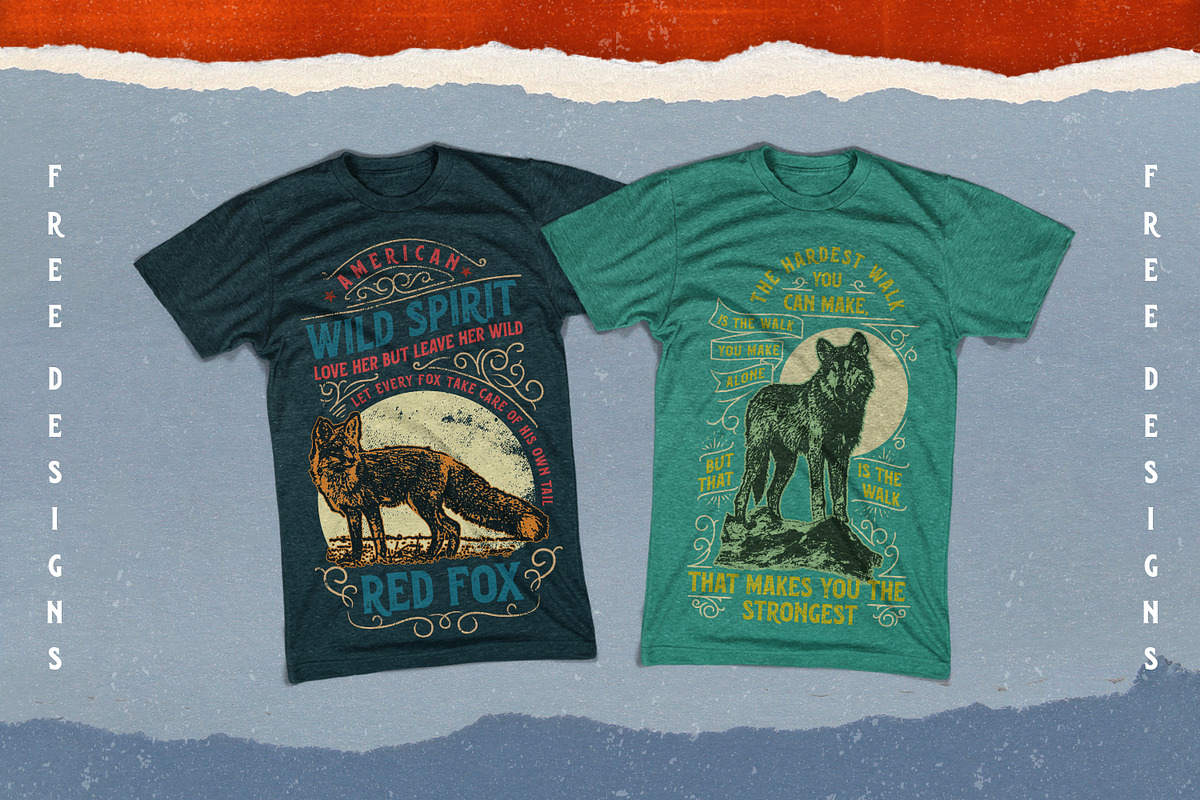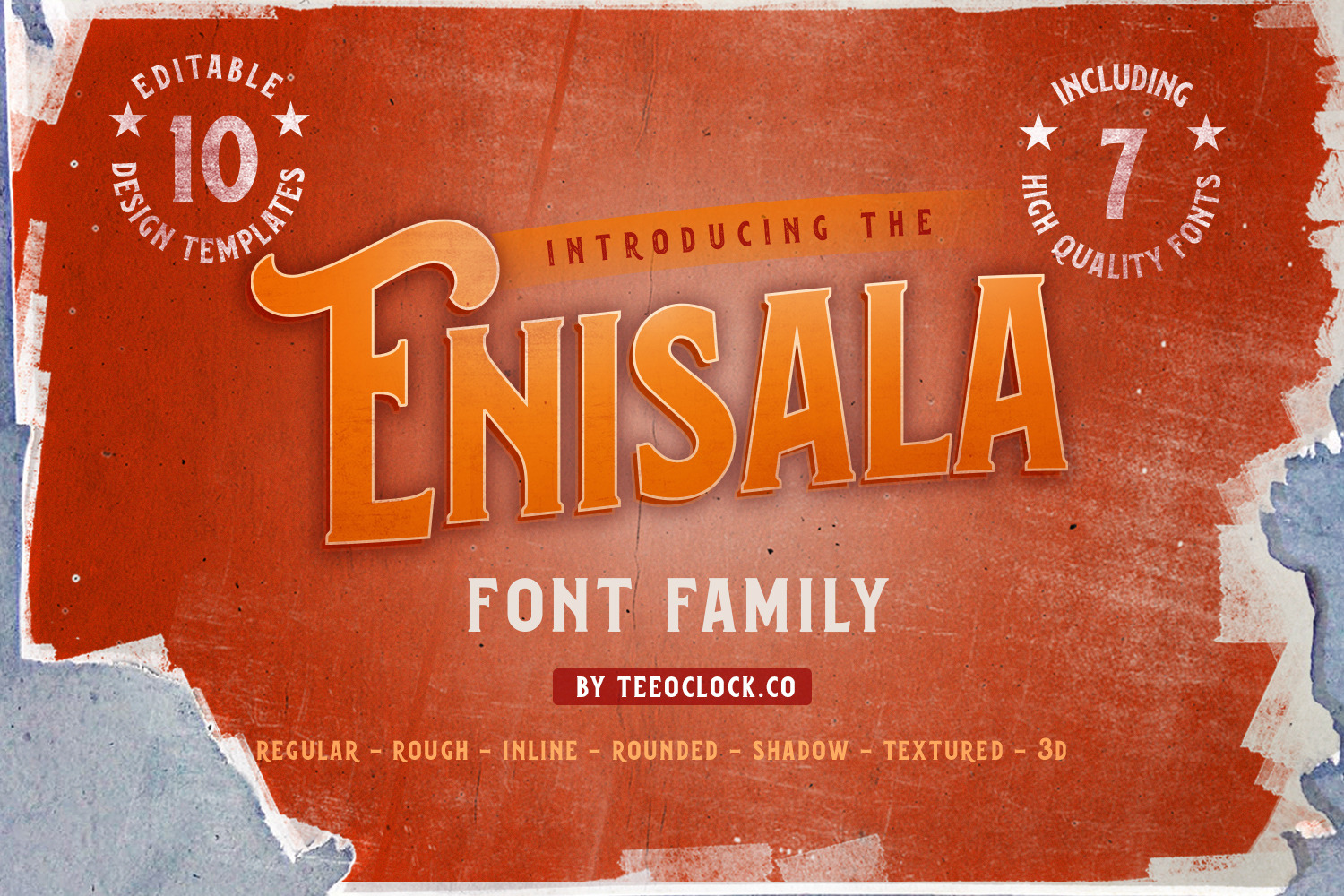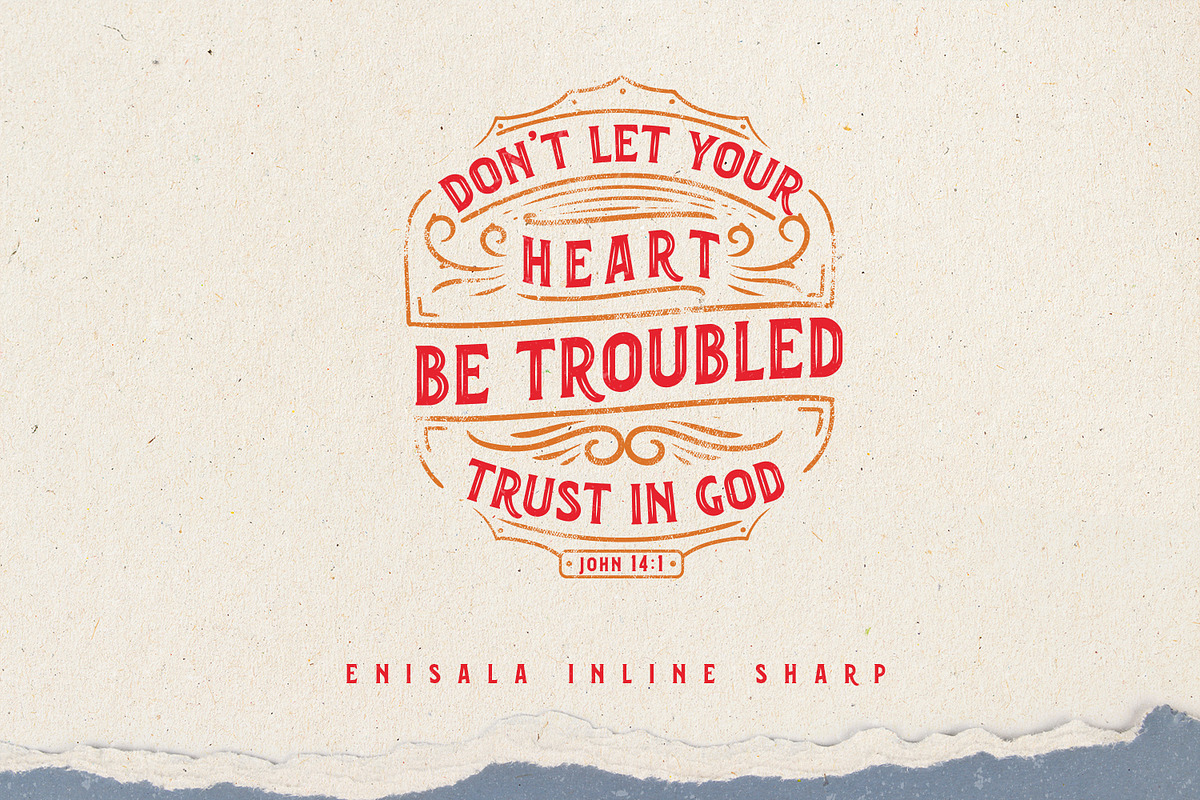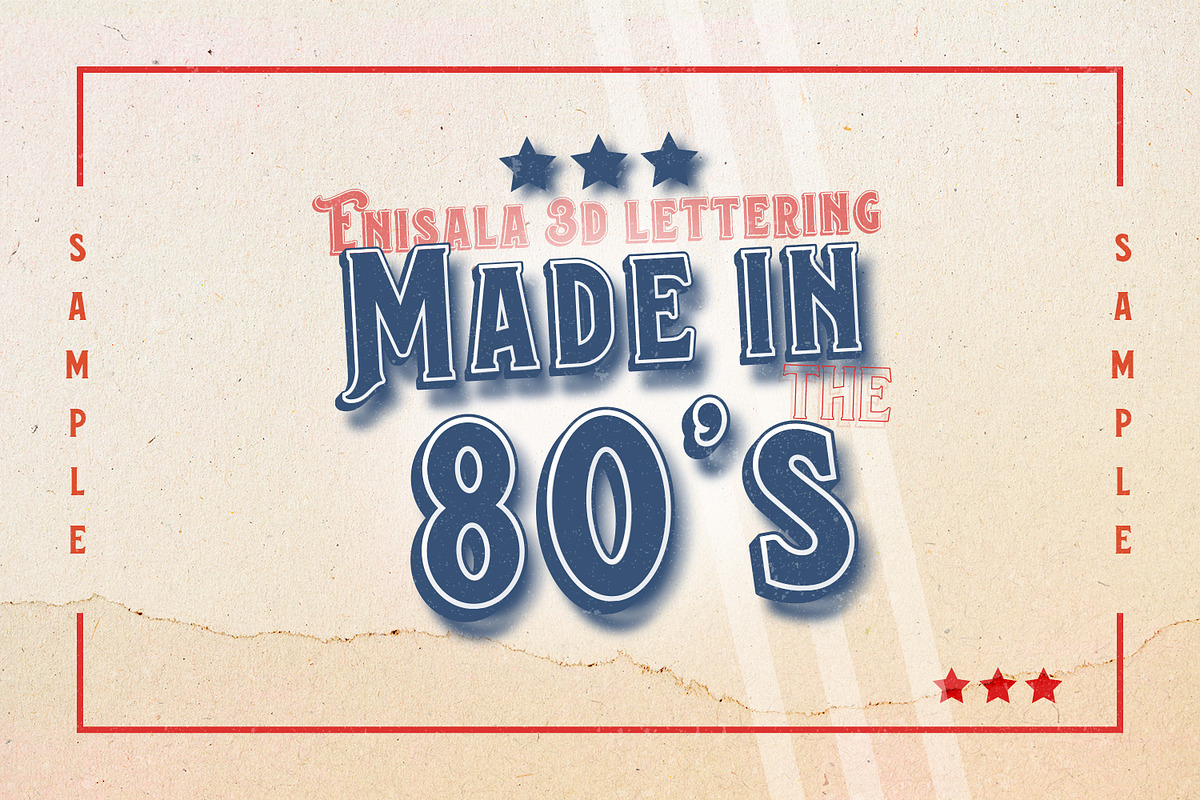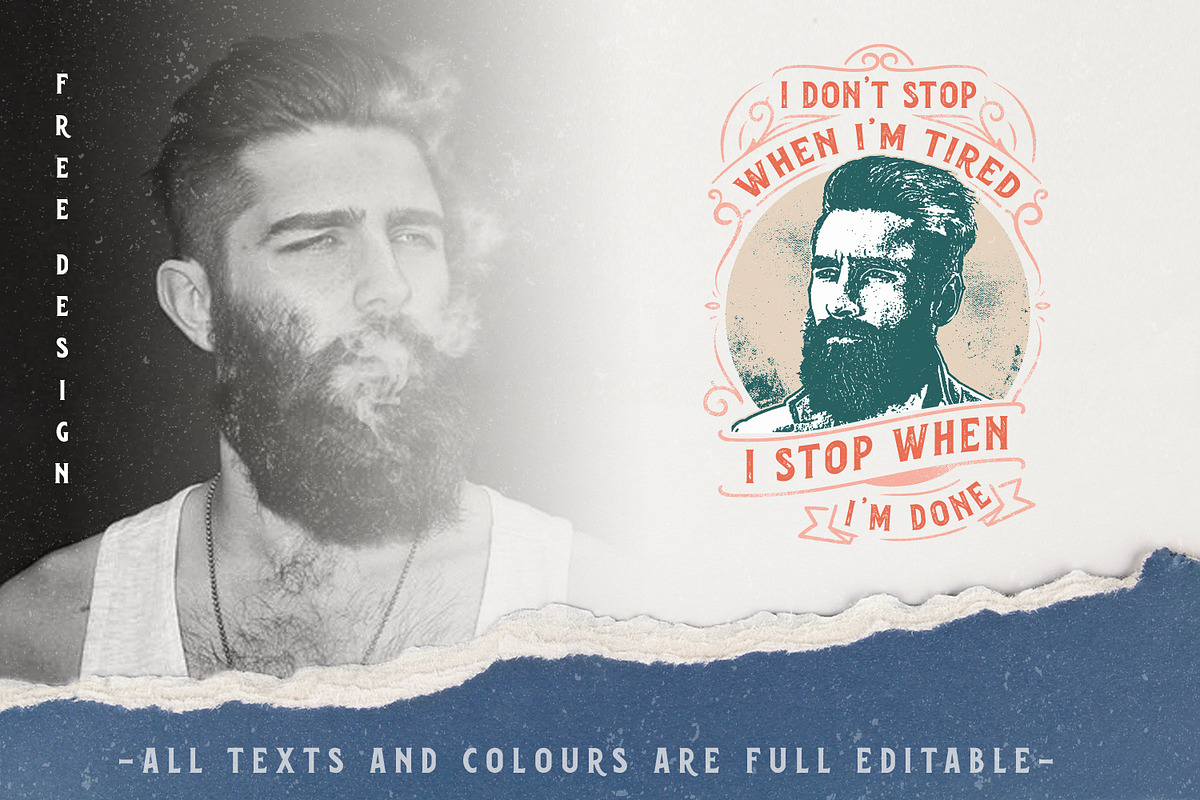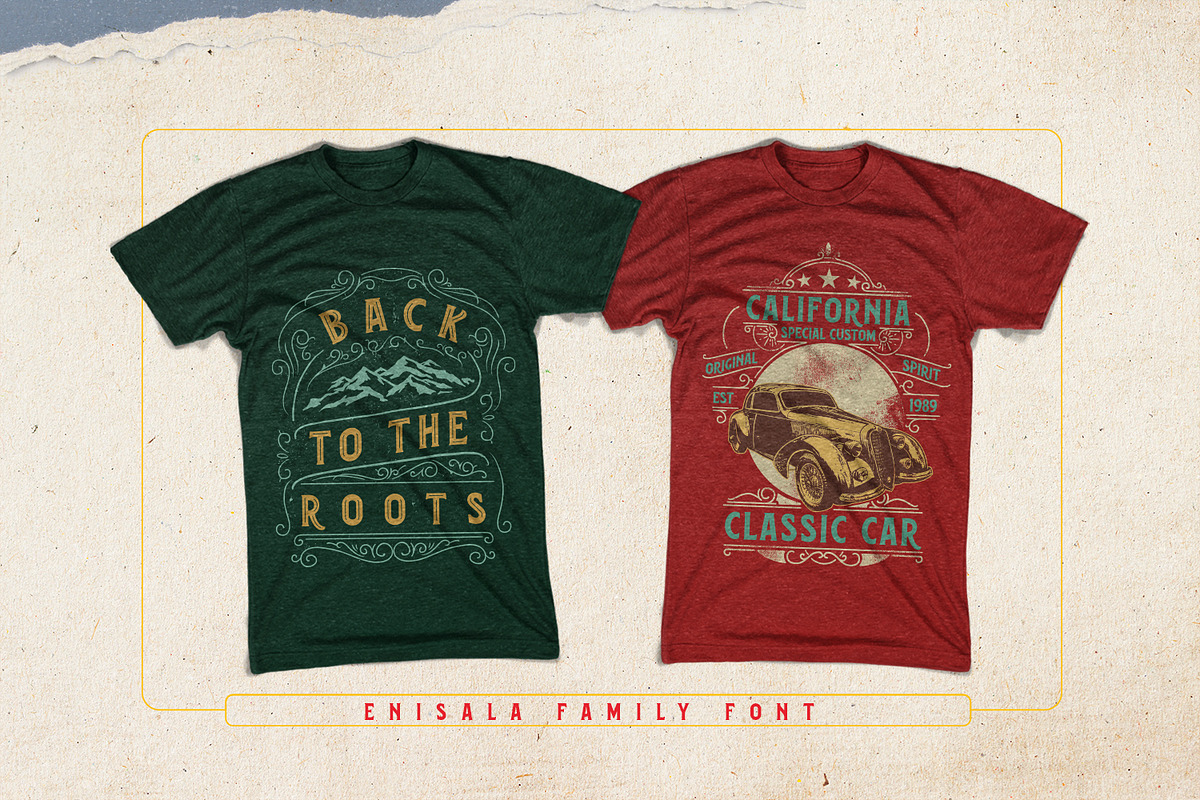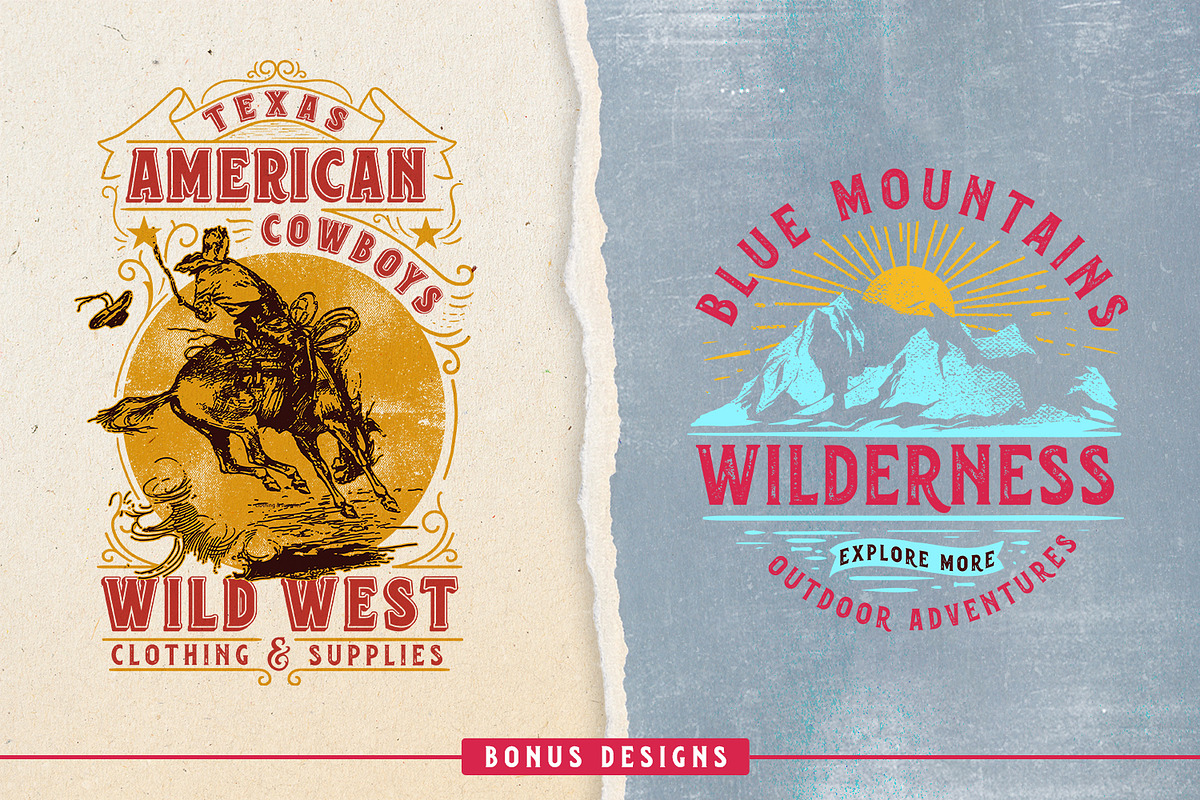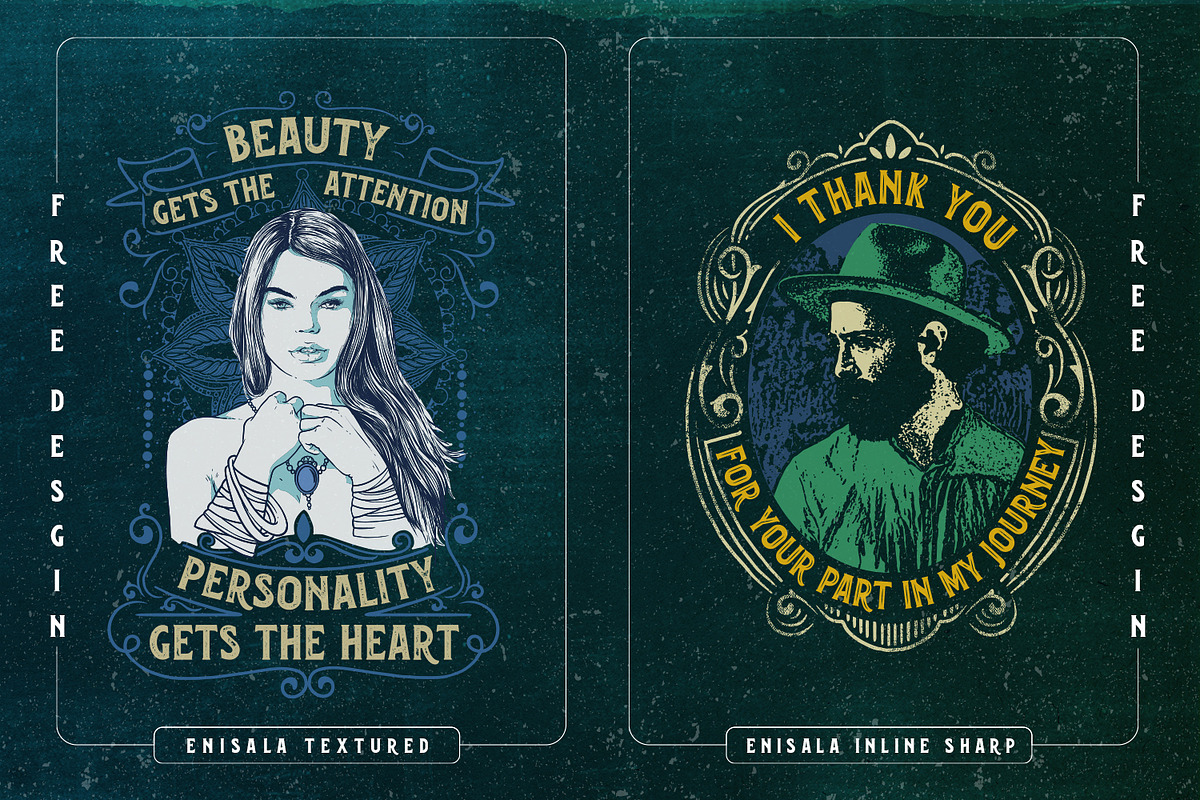
Enisala font family is a set of 7 fonts inspired by the advertisement/editorial style from the middle of the 20th century. Most of my time-worn designs are based on the shapes of these letters. Along the years, I have been drawing, re-drawing and improving them constantly. As I am very determined to create 100% editable designs, I tried to combine all these influences and my years of experience in order to make a font around which I will be able to create easily plenty of new designs.
I hope this font will inspire you as well, to create lots of T-shirt designs, logos, labels, package designs or to approach any other theme that defines your artistic style.
On top of this, this product includes a set of 10 designs which I based on this font. I created these specially to show you how many wonderful things can be made with the help of this pack.
- Enisala Regular
- Enisala Shadow
- Enisala 3D
- Enisala Rough
- Enisala Inline Rounded
- Enisala Inline Sharp
- Enisala Textured